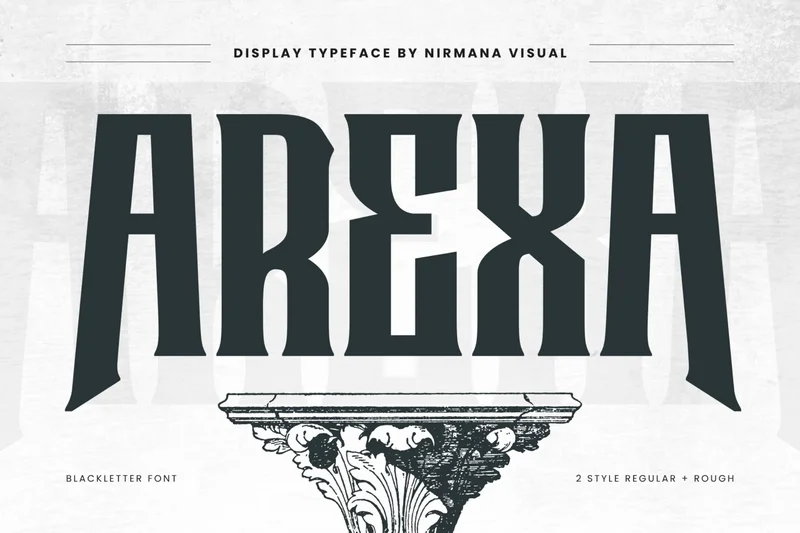
Arexa – Logo Blackletter Font
Arexa offers beautiful typographic harmony for a diversity of design projects, including logos & branding, social media posts, advertisements & product designs.